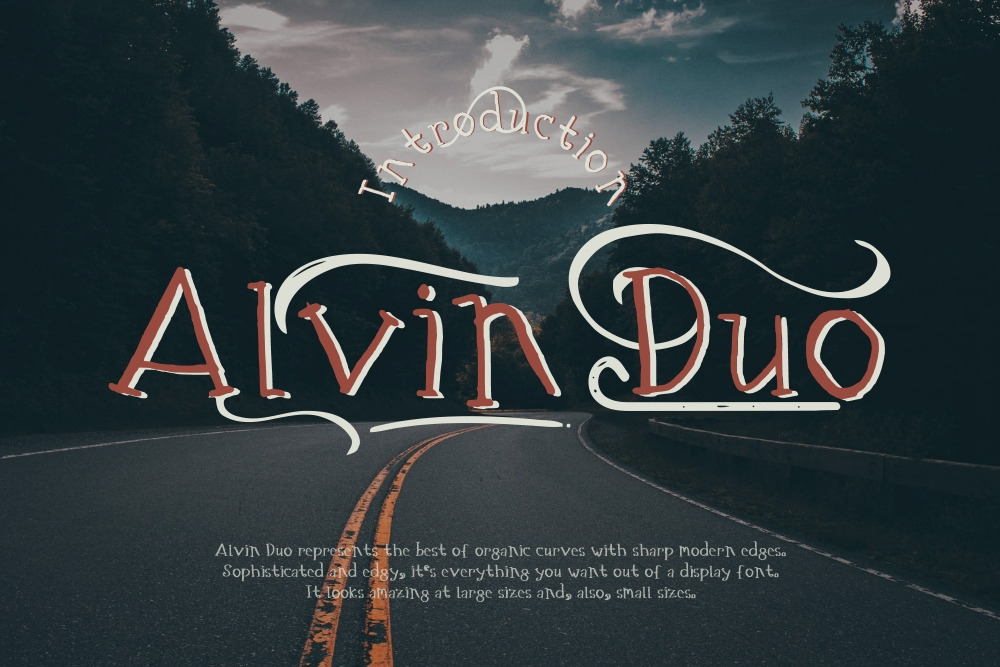
Alvin Duo - 5 Font styles
Alvin Duo - 5 Font styles and 150+ Swashes
Alvin Duo represents the best of organic curves with sharp modern edges. Sophisticated and edgy, it's everything you want out of a display font. It looks amazing at large sizes and, also, small sizes.
- Alvin Duo
- Alvin Duo Blonde
- Alvin Duo Dauble tail
- Alvin Duo Halfmoon
- Alvin Duo Pair